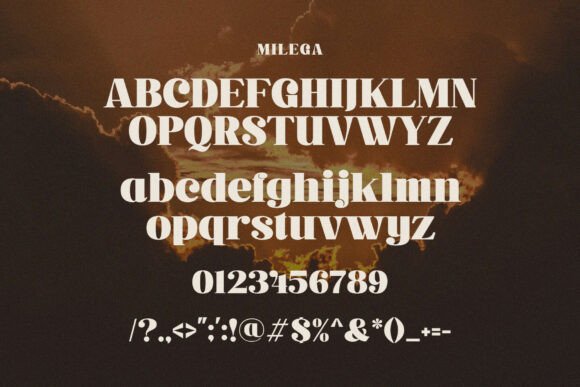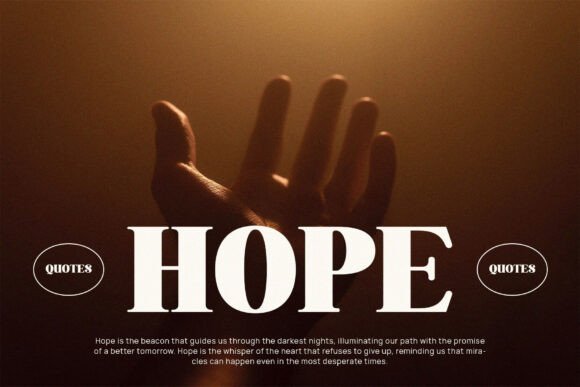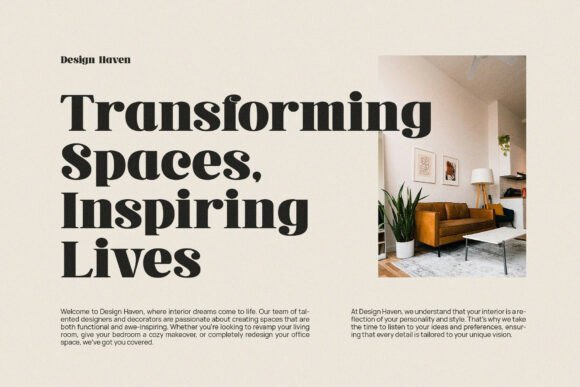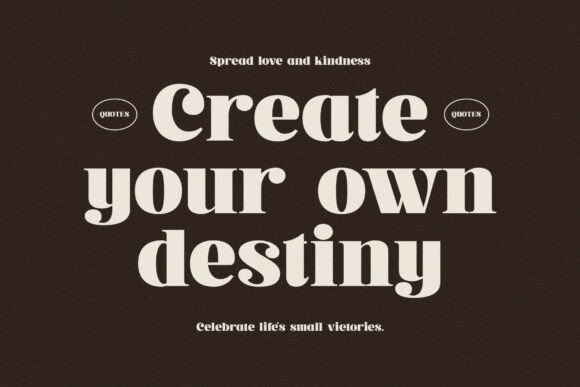
Introduction to Milega Font
Imagine you’re a graphic designer working on a high-end branding project, and you’re struggling to find the perfect font to convey luxury and sophistication. You’ve browsed through countless free download options, but nothing seems to fit the bill. That’s when you stumble upon the Milega Font – a stylish, luxurious serif font that exudes timeless elegance and refined curves.
As designers, we’re always on the lookout for high-quality design resources that can elevate our creative projects. The Milega Font is an exceptional find, perfect for creating a distinguished presence in editorials, packaging, and other high-end visual presentations. With its classic structure paired with modern flair, this font is a valuable addition to any designer’s toolkit, offering the flexibility to work with transparent backgrounds and a range of design elements.
Key Features of Milega Font
- Transparent background allows for seamless integration with any design
- Designed to provide a unique and stylish touch to any digital project
Honest Review: Milega Font
I recently stumbled upon the Milega Font and was excited to give it a try in my latest design project. As a designer, I’m always on the lookout for high-quality fonts that can elevate my work and make it stand out.
One of the things that immediately caught my eye was the Milega Font’s sleek and modern design. The font is incredibly versatile and works well in a variety of creative projects, from digital interfaces to print materials.
Here are some of the things that work well with the Milega Font:
- ✨ High-quality design: The font is well-crafted and looks great on screen.
- ✨ Versatile: The Milega Font can be used in a wide range of creative projects.
However, there are a few limitations to the Milega Font that I’d like to note:
- ⚠️ Limited language support: The font only supports a limited number of languages, which may be a drawback for designers who need to work with multiple languages.
- ⚠️ Not suitable for complex text: The font is best used for short blocks of text, as it can become difficult to read when used for longer passages.
Overall, I’m really impressed with the Milega Font and would definitely recommend it to designers looking for a high-quality, versatile font for their creative projects.
Tips for Getting the Most Out of Milega Font
Use the Milega Font with a transparent background to create a clean and modern design. Experiment with different font sizes and styles to add visual interest to your project. Use the font in combination with other design resources to create a cohesive look.
The Milega Font is suitable for a variety of creative projects, including logos, brochures, and social media graphics. Its high-quality design and transparent background make it a popular choice for designers looking for a reliable design resource.